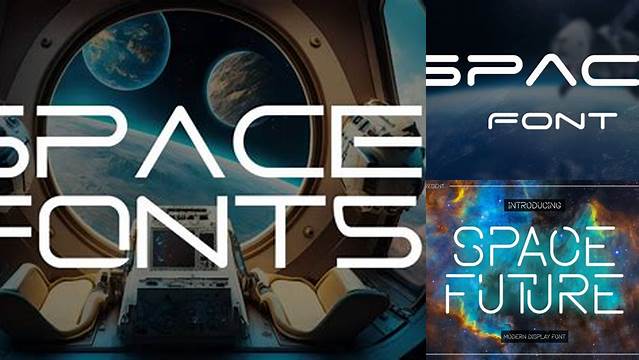
Free Space Fonts: Commercial Use Guide
Hey guys! Ever wanted to give your project that stellar, out-of-this-world vibe? Well, look no further! We're diving deep into the cosmos of space fonts free for commercial use. Finding the perfect font can sometimes feel like searching for a distant galaxy, but don't worry, I'm here to guide you through the universe of typography. So buckle up, and let’s explore the best free space fonts for all your commercial needs!
Space-Themed Fonts: An Overview
Let's kick things off with a broad look at what space fonts free for commercial use actually entail. These are fonts inspired by outer space, sci-fi themes, and futuristic designs, available for you to use in your commercial projects without having to pay any licensing fees. This means you can use them for logos, websites, marketing materials, and more, without legal headaches. The key is to ensure the fonts are genuinely free for commercial use; always double-check the license before using them!
When you're selecting space fonts free for commercial use, consider the overall aesthetic you're aiming for. Are you going for a sleek, modern sci-fi look, or a retro, vintage space vibe? Different fonts can evoke different emotions and associations, so choose wisely. For example, a clean sans-serif font might be perfect for a tech startup, while a more stylized font with unique glyphs could be great for a science fiction book cover. Remember, the right font can make all the difference in capturing your audience's attention and conveying your message effectively. Don't be afraid to experiment and try out different options until you find the perfect fit for your project.
Best Free Space Fonts for Designers
For designers looking to elevate their work, finding space fonts free for commercial use can be a game-changer. From sleek, futuristic designs to retro-inspired typefaces, the possibilities are endless. Designers often need fonts that not only look great but also offer versatility and readability across various platforms. This means considering factors like kerning, letter spacing, and overall legibility when making your selection. A well-chosen font can enhance the visual appeal of your designs and effectively communicate your message to your target audience. Additionally, designers should pay attention to the licensing terms associated with each font to ensure they are indeed free for commercial use. This step can prevent potential legal issues down the line and ensure that your work remains compliant with copyright regulations. Always check the font's documentation or contact the creator if you're unsure about its usage rights.
Futuristic Fonts: Free Commercial Options
Space fonts free for commercial use often lean towards a futuristic aesthetic, reflecting the cutting-edge technology and visionary concepts associated with space exploration. These fonts typically feature clean lines, geometric shapes, and a minimalist design, making them ideal for projects that aim to convey innovation and progress. Many designers use these fonts to create a sense of modernity and sophistication in their work, whether it's for website design, branding, or marketing materials. The key is to choose a font that aligns with the overall message and tone of your project. Consider factors like font weight, style variations, and character set when making your selection. A well-chosen futuristic font can help your project stand out and capture the attention of your target audience.
Sci-Fi Fonts: Commercial Use Allowed
Sci-fi fonts are a subset of space fonts free for commercial use that draw inspiration from science fiction literature, movies, and video games. These fonts often feature unique and stylized letterforms, with a focus on creating a sense of otherworldly adventure and technological advancement. Sci-fi fonts can be used to add a touch of intrigue and excitement to your designs, making them ideal for projects that aim to capture the imagination. When selecting a sci-fi font, consider the overall tone and theme of your project. Are you going for a gritty, dystopian look, or a sleek, utopian vibe? Different fonts can evoke different emotions and associations, so choose wisely. Also, be sure to check the font's licensing terms to ensure it is indeed free for commercial use. This step can prevent potential legal issues and ensure that your work remains compliant with copyright regulations.
Retro Space Fonts: Free for Commercial Projects
For a nostalgic twist, retro space fonts free for commercial use offer a vintage-inspired aesthetic that harkens back to the golden age of science fiction. These fonts often feature bold, blocky letterforms, with a focus on creating a sense of retro futurism. Retro space fonts can be used to add a touch of charm and personality to your designs, making them ideal for projects that aim to evoke a sense of nostalgia. When selecting a retro space font, consider the overall style and era of your project. Are you going for a classic 1950s look, or a more modern 1980s vibe? Different fonts can evoke different emotions and associations, so choose wisely. Also, be sure to check the font's licensing terms to ensure it is indeed free for commercial use. This step can prevent potential legal issues and ensure that your work remains compliant with copyright regulations.
Exploring Font Foundries Offering Free Space Fonts
Many font foundries offer a selection of space fonts free for commercial use, providing designers with a valuable resource for their projects. These foundries often curate a collection of high-quality fonts from various designers, ensuring that you have access to a diverse range of options. When exploring font foundries, be sure to check their licensing terms and usage guidelines to ensure that the fonts are indeed free for commercial use. Some foundries may offer a mix of free and premium fonts, so pay close attention to the details. Additionally, consider supporting these foundries by purchasing their premium fonts or making a donation to help them continue providing free resources to the design community. By supporting font foundries, you're helping to foster creativity and innovation in the world of typography.
Understanding Font Licensing for Commercial Use
Understanding font licensing is crucial when working with space fonts free for commercial use. A font license specifies the terms and conditions under which you can use a particular font, including whether it is free for commercial use. Commercial use typically refers to using the font for projects that generate revenue, such as logos, websites, and marketing materials. Before using any font, it's essential to carefully review the license agreement to ensure that you are complying with its terms. Some fonts may be free for personal use but require a commercial license for business-related projects. Failing to comply with font licensing can result in legal issues and financial penalties. Therefore, always double-check the license before using a font in your commercial projects.
Tips for Choosing the Right Space Font
Choosing the right space fonts free for commercial use can be a daunting task, given the vast array of options available. However, by following a few simple tips, you can narrow down your choices and find the perfect font for your project. First, consider the overall aesthetic and tone of your project. Are you going for a futuristic, retro, or minimalist look? Different fonts can evoke different emotions and associations, so choose wisely. Second, pay attention to the font's readability and legibility. A font that looks great but is difficult to read is not a good choice for body text or important headings. Third, consider the font's versatility and compatibility with different platforms and devices. A font that looks great on your computer may not render correctly on a mobile device. Finally, don't be afraid to experiment and try out different options until you find the perfect fit for your project. With a little bit of research and experimentation, you can find the ideal space font to elevate your designs.